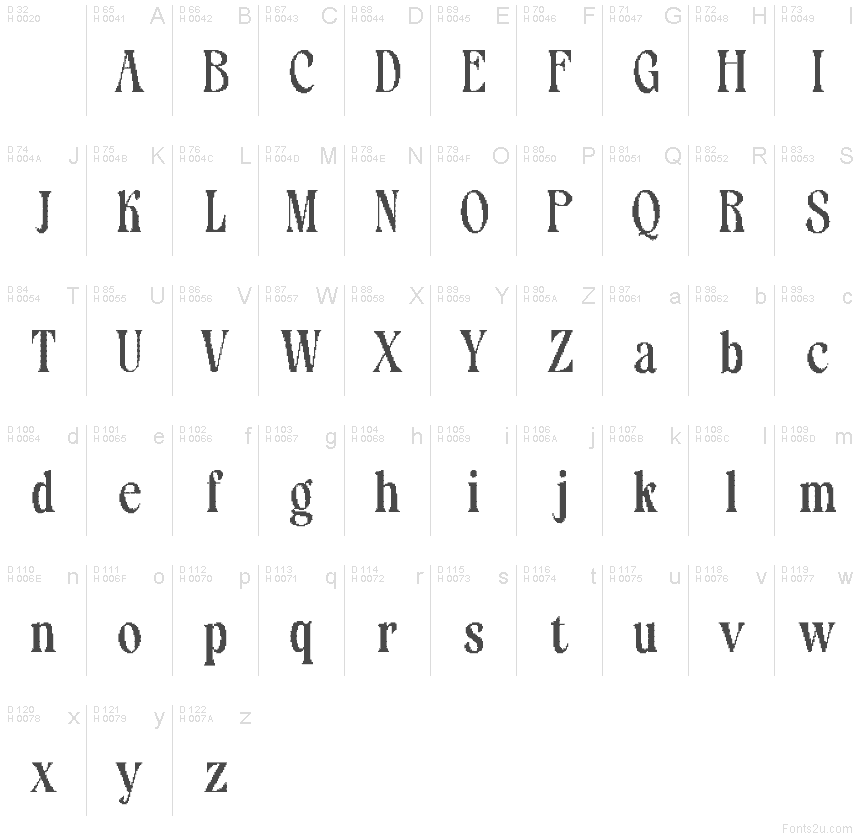
RedikaDisco-Regular Demo
Redika Disco font by Craft Supply Co. is a free regular digital display font. Built on a dotted, LED-style matrix that wraps around a refined serif skeleton, it glints with a subtle, strobe-like shimmer. The texture feels prismatic and slightly grainy, while the spacing keeps letters legible even as the halftone pattern adds motion—like light sweeping across a disco ball.
Using Redika Disco, headlines snap to attention on nightclub posters, DJ flyers, album covers, festival passes, retro-tech banners, and social promos. The steady grid gives titles a rhythmic pulse without losing clarity. For balance, pair this free font with a clean geometric sans for small copy, and set Redika Disco large so the dot pattern breathes.